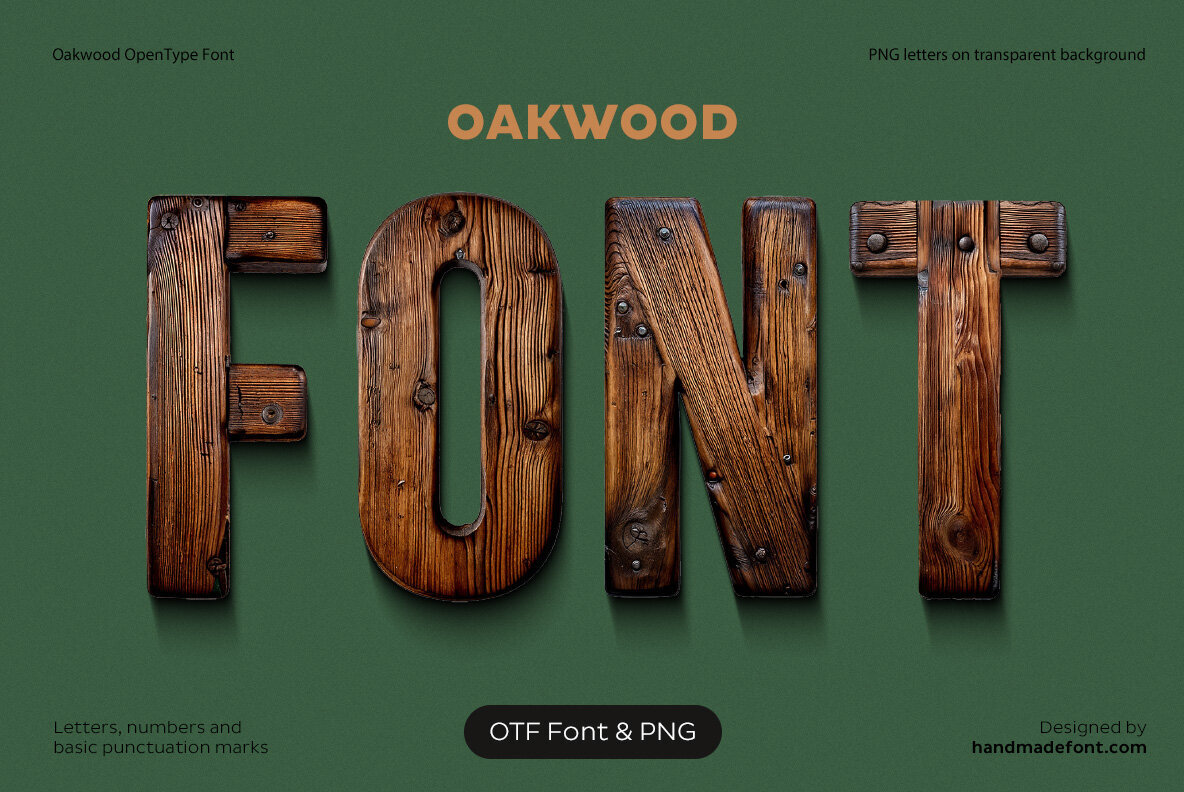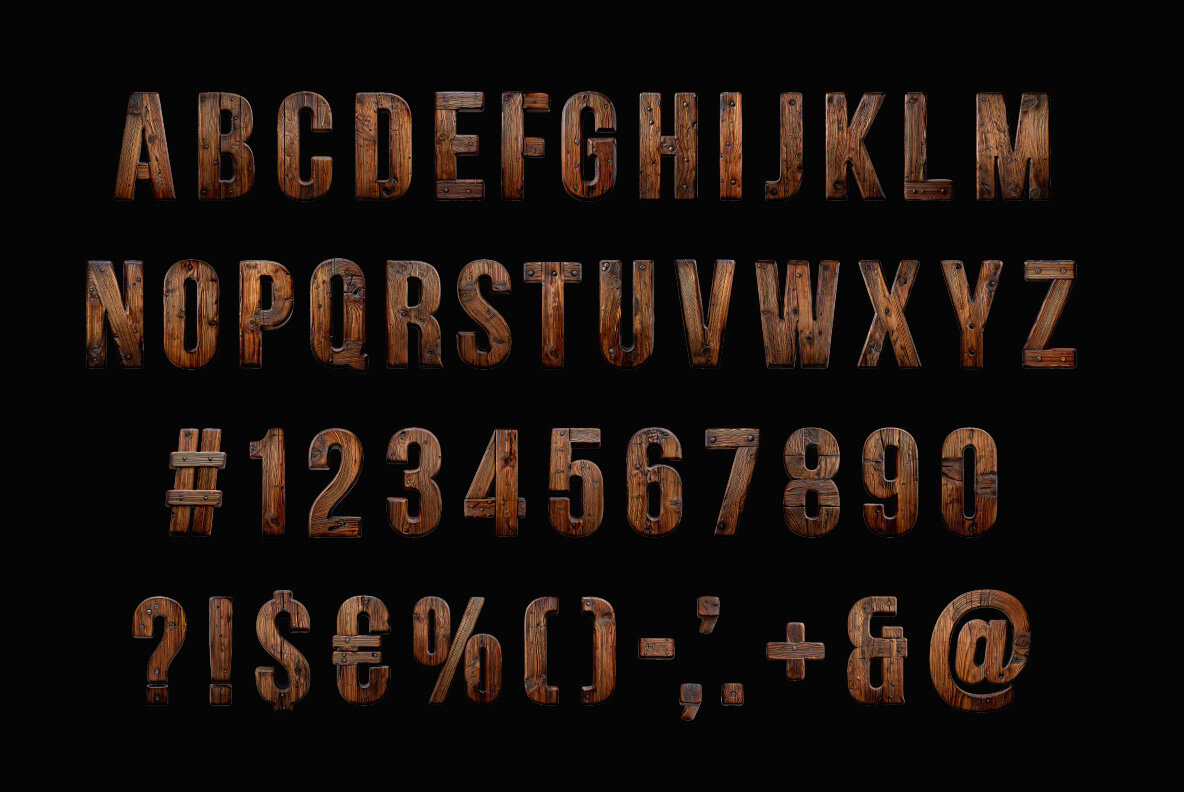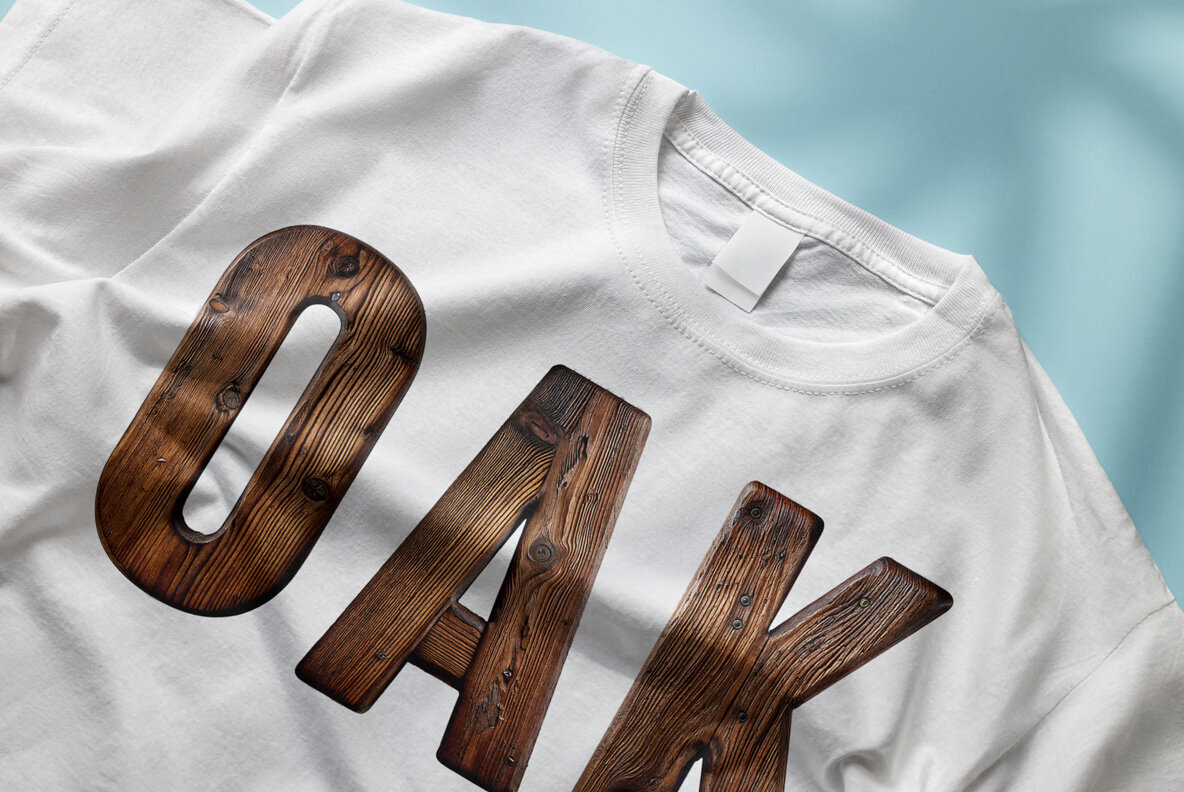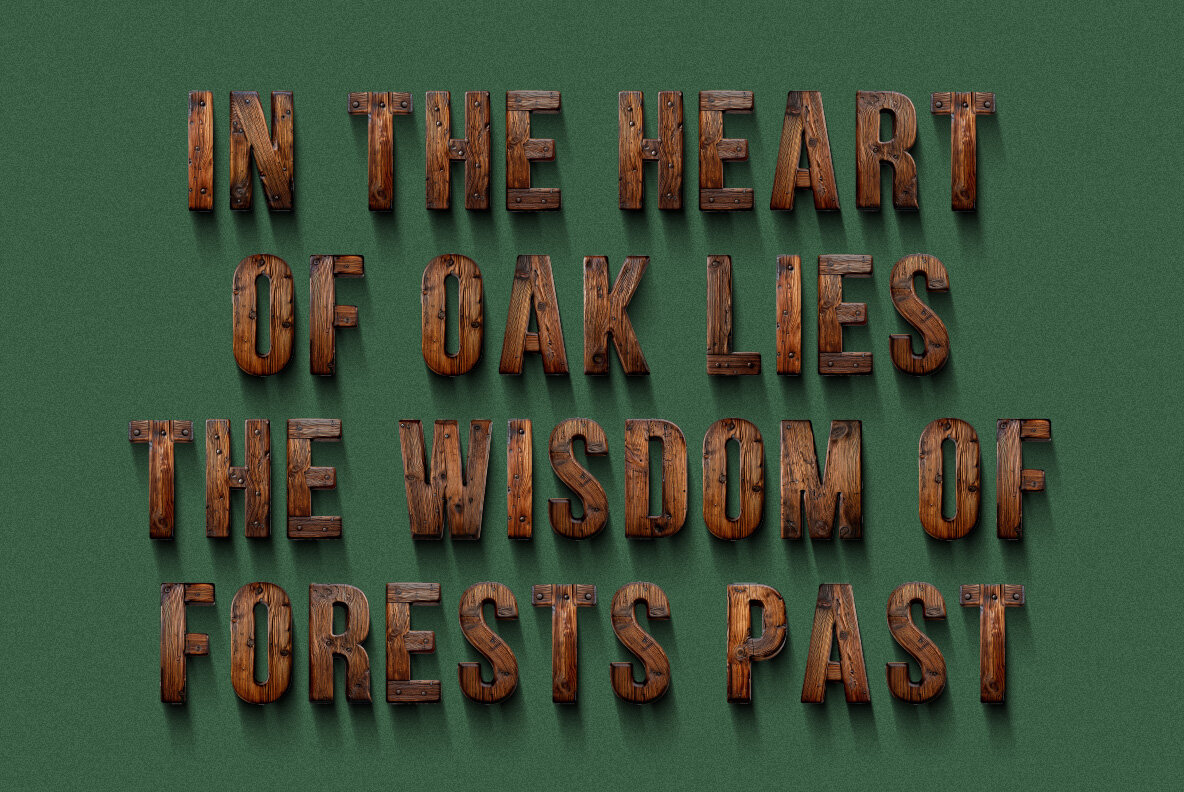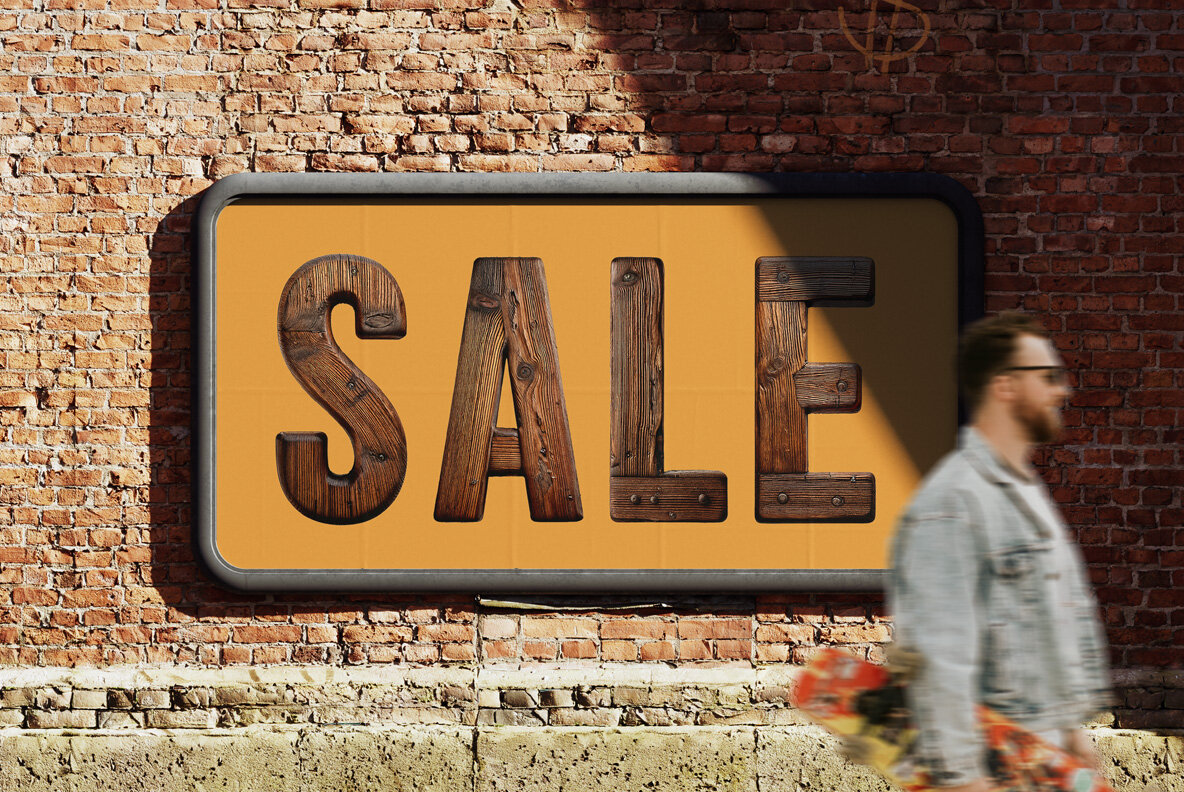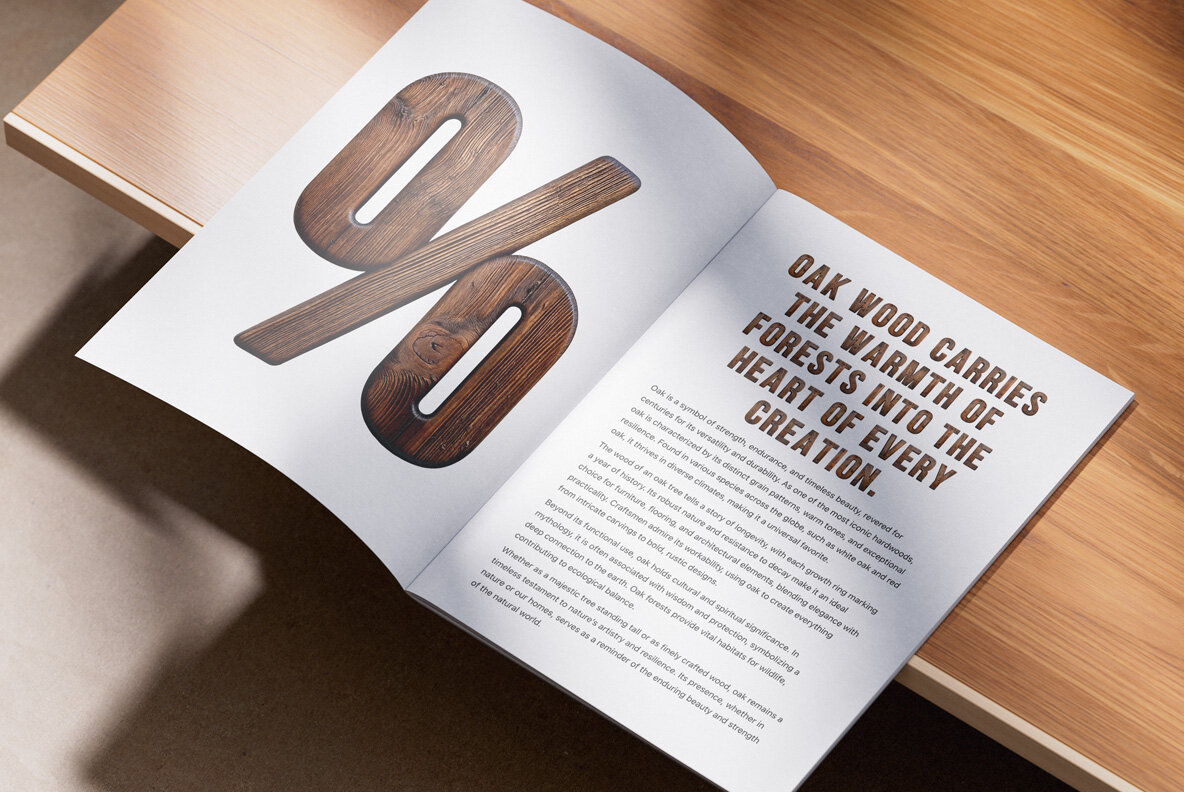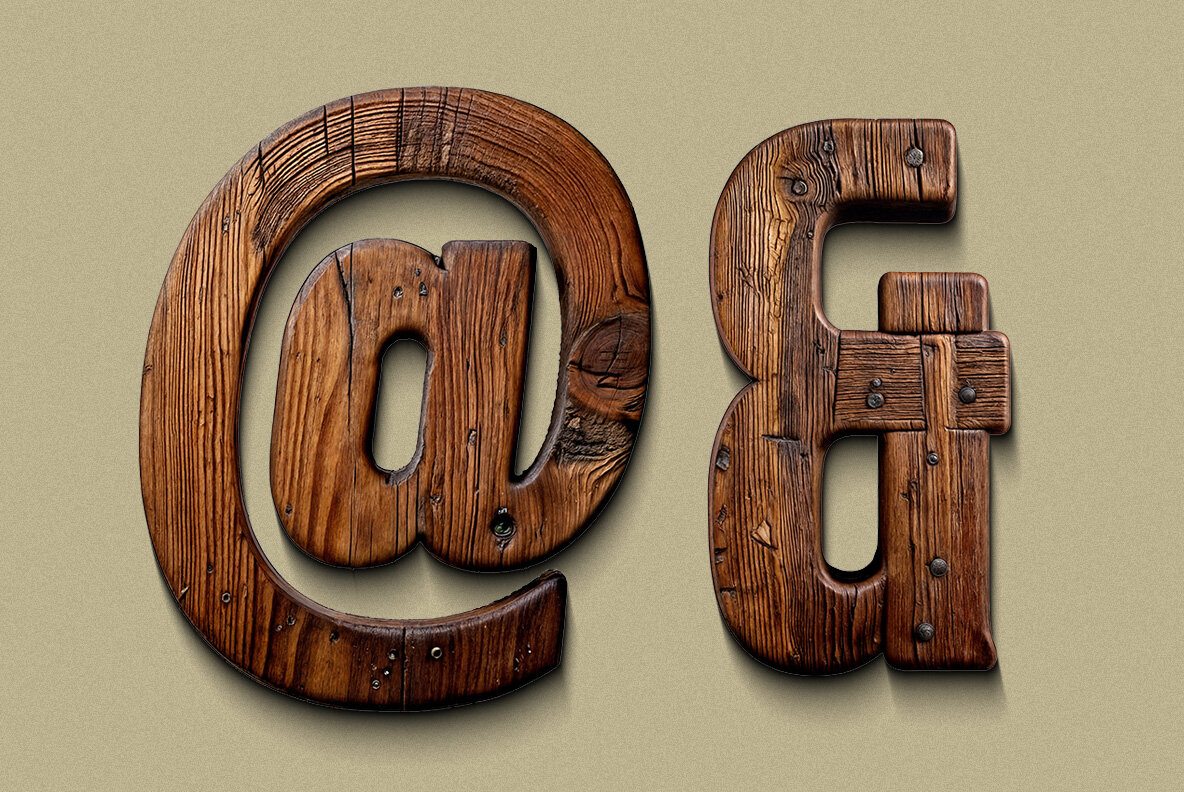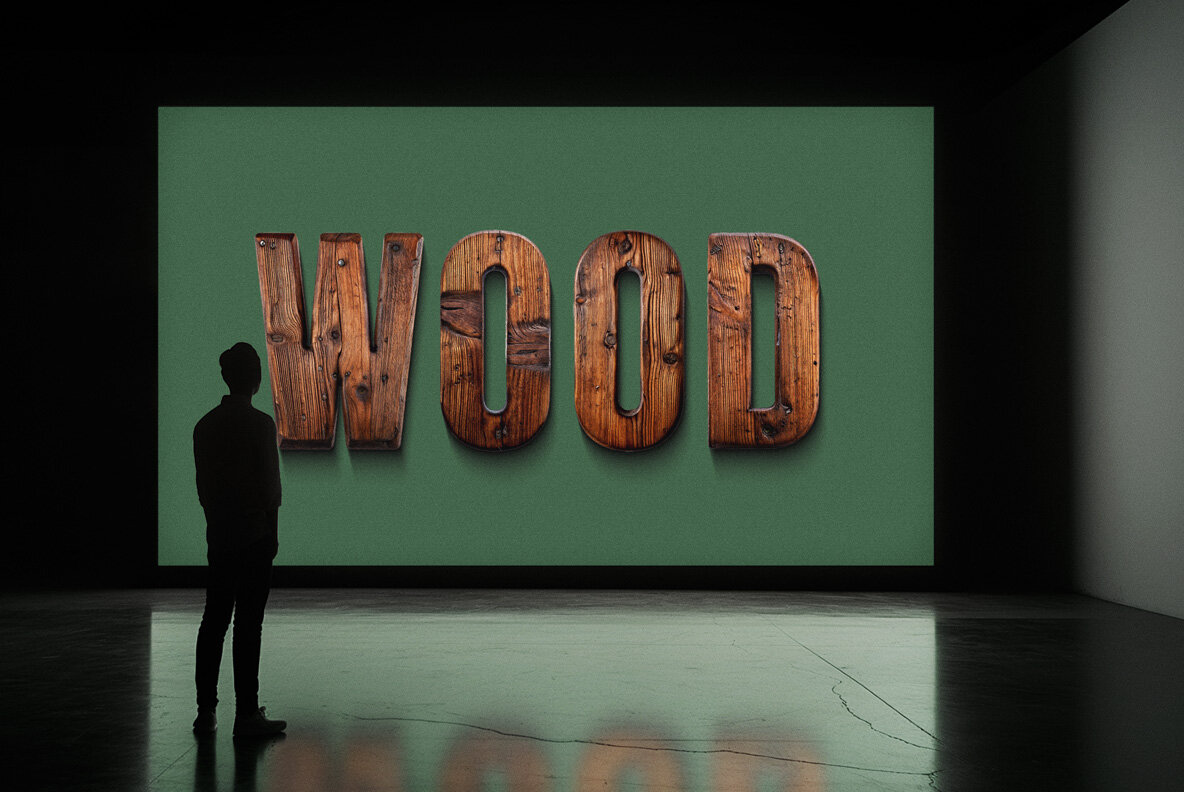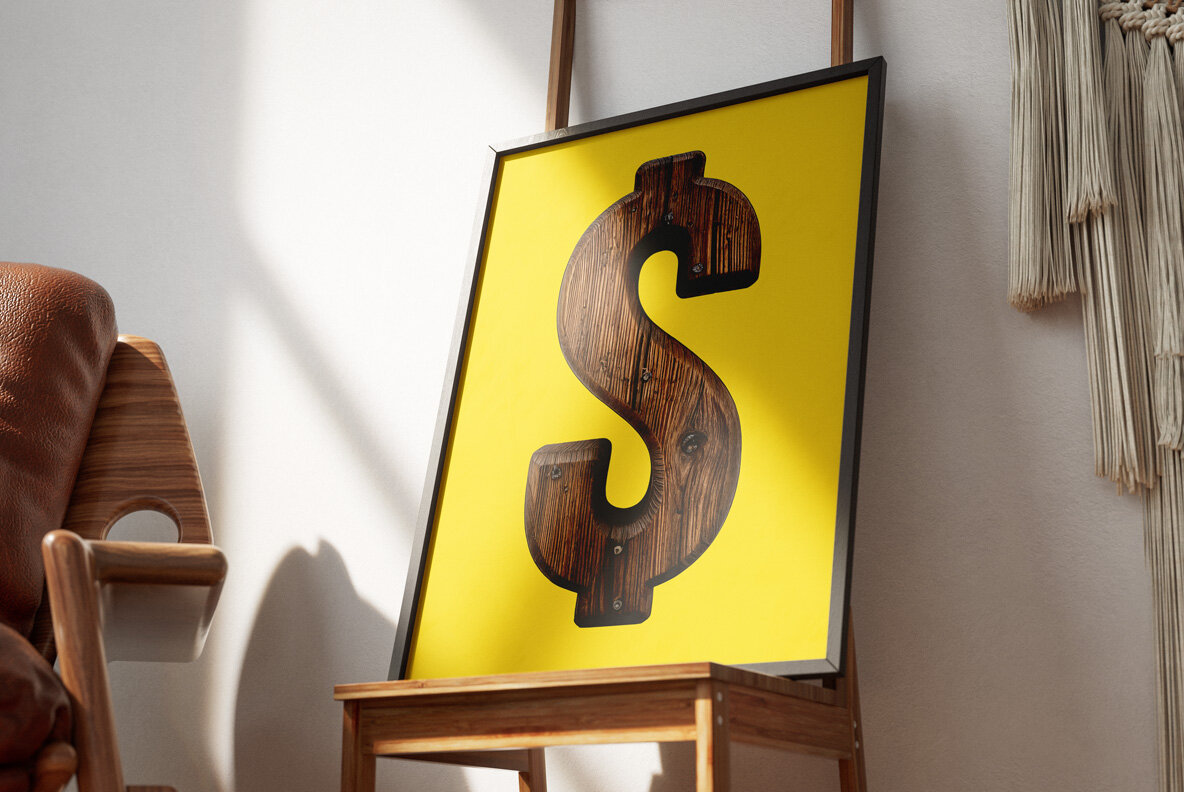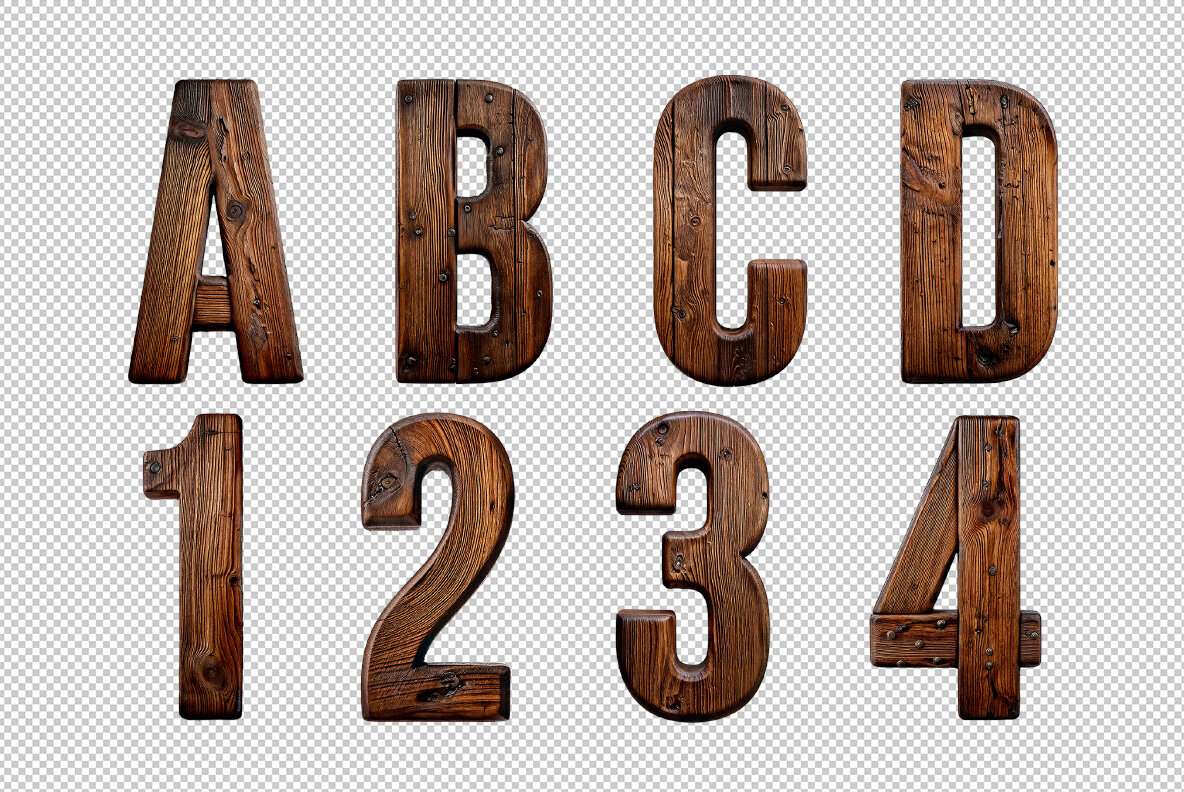
Oakwood captures the timeless essence of aged wood, offering a beautifully textured font that embodies the character of rustic timber. Each letter is crafted with visible wood grain, knots, and natural imperfections, showcasing the organic charm of oak typography. This oak-inspired font reflects the strength and warmth of hardwood, presenting hues that range from deep brown to golden tones. It creates a distinct aesthetic that perfectly caters to vintage designs and nature-themed projects, providing a raw yet refined touch to any creative endeavor.